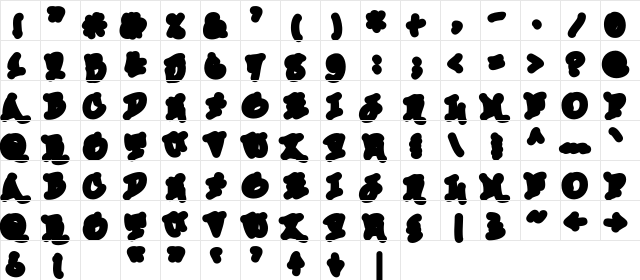
Urban Scrawl Down Regular Font Preview
Urban Scrawl Down Regular
Design Context for Urban Scrawl Down Typeface
Urban Scrawl Down is a composed and adaptable typeface that performs quietly and consistently across a wide range of design contexts.